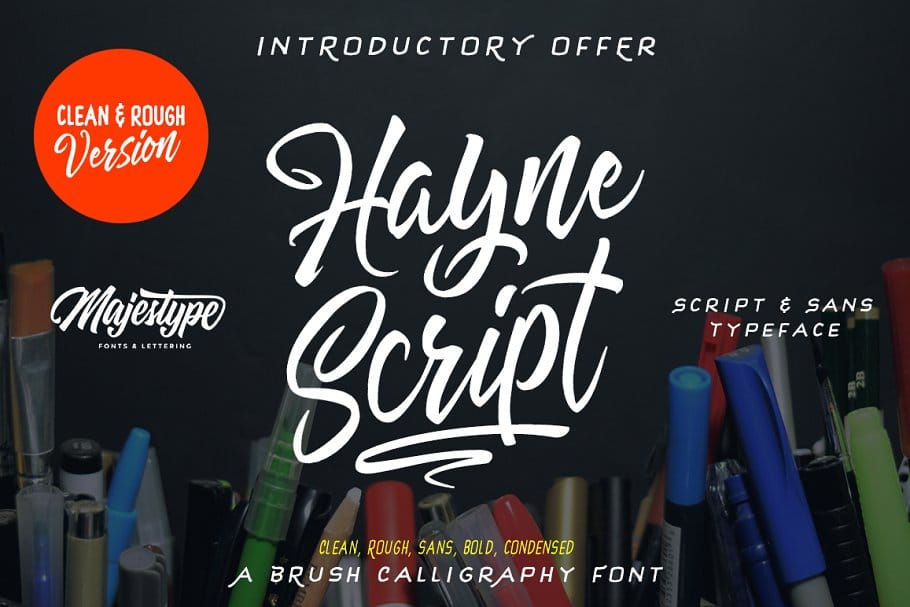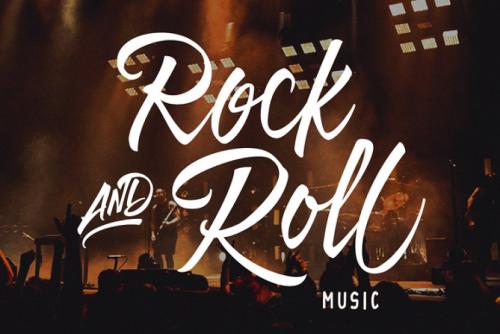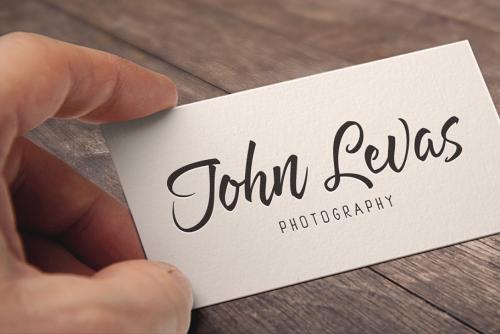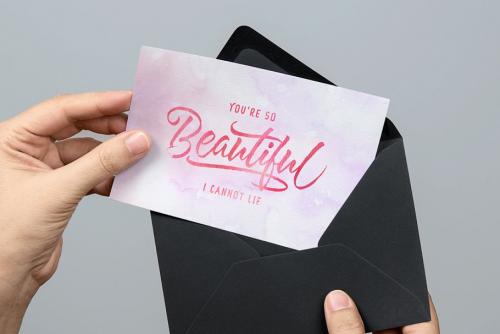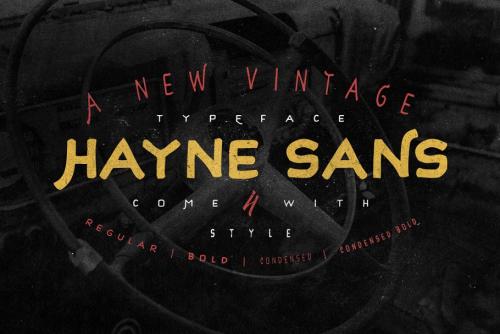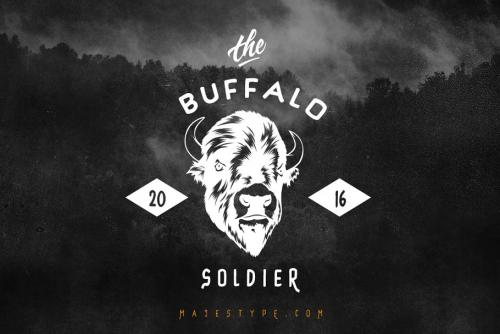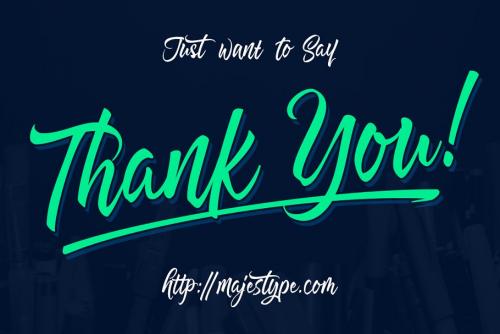
Hayne Script Clean & Rough Font
Hayne Script Clean Rough Font
Hayne Script Clean & Rough Version + Sans were made with a brushpen and regular pen. It comes with a lot Glyph, 2 style for Script, international languages for Script and Standard Glyph for Sans Version, it can be a new great weapon for your next project.
We deliberately made the dying effect in this font to make it look natural and as a handwriting would be. Also, we create the clean version to make this font suitable for headline.